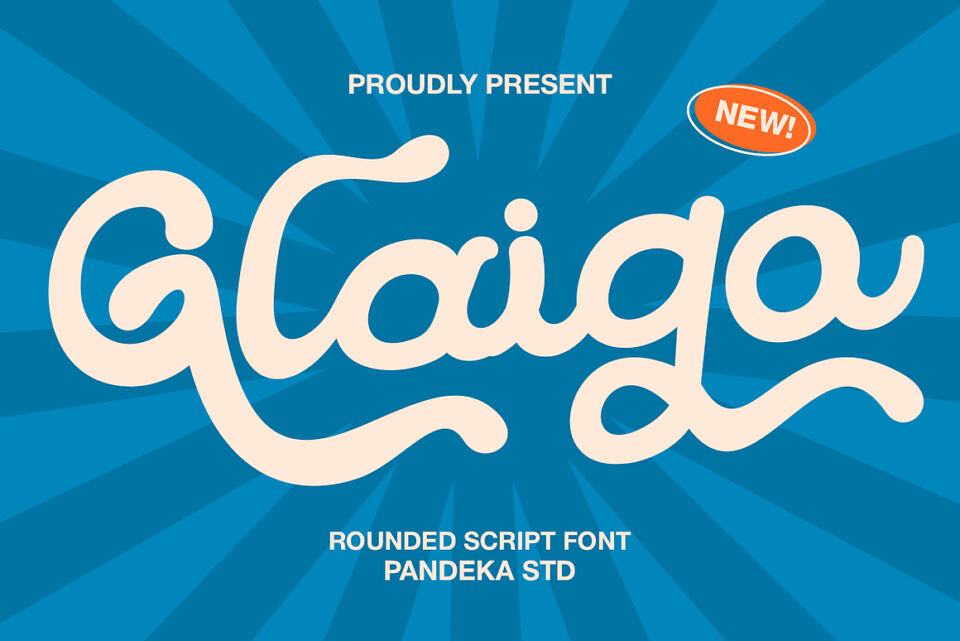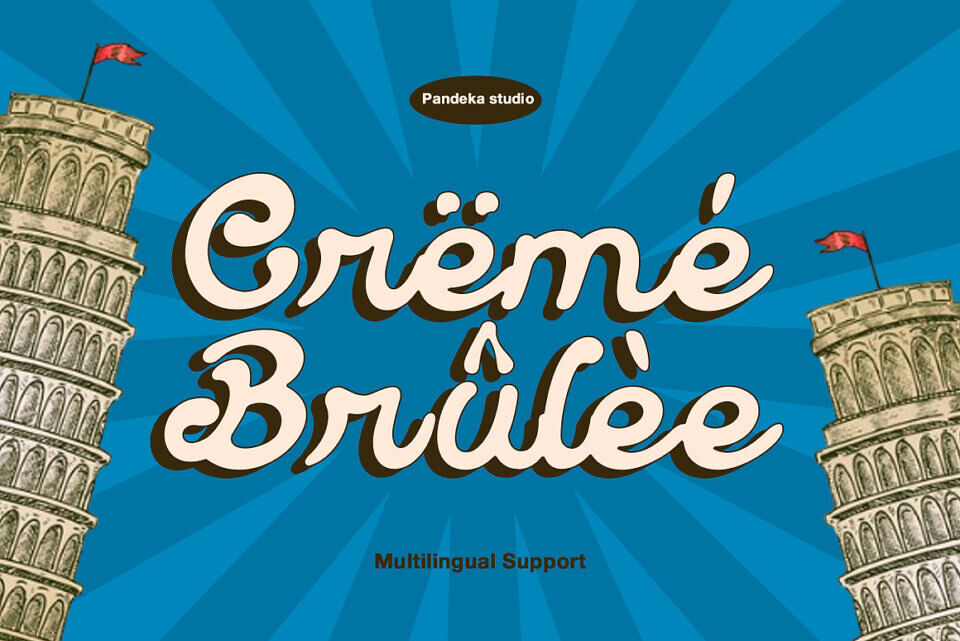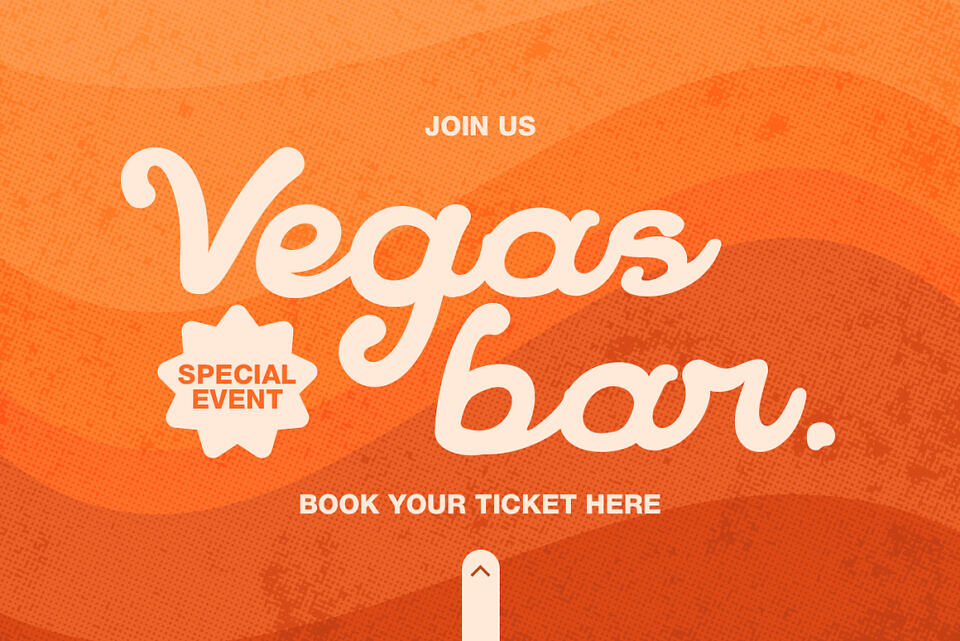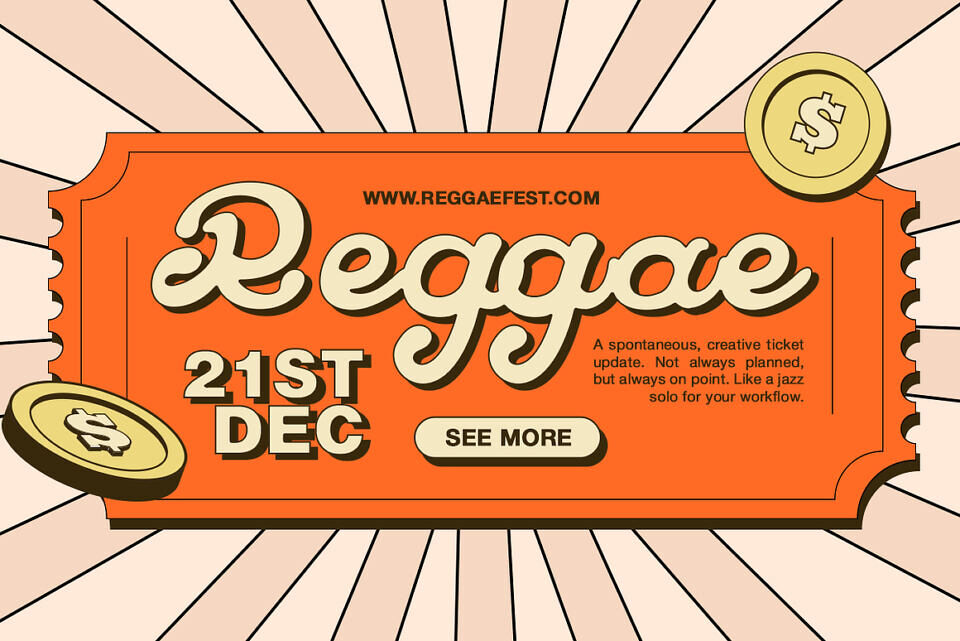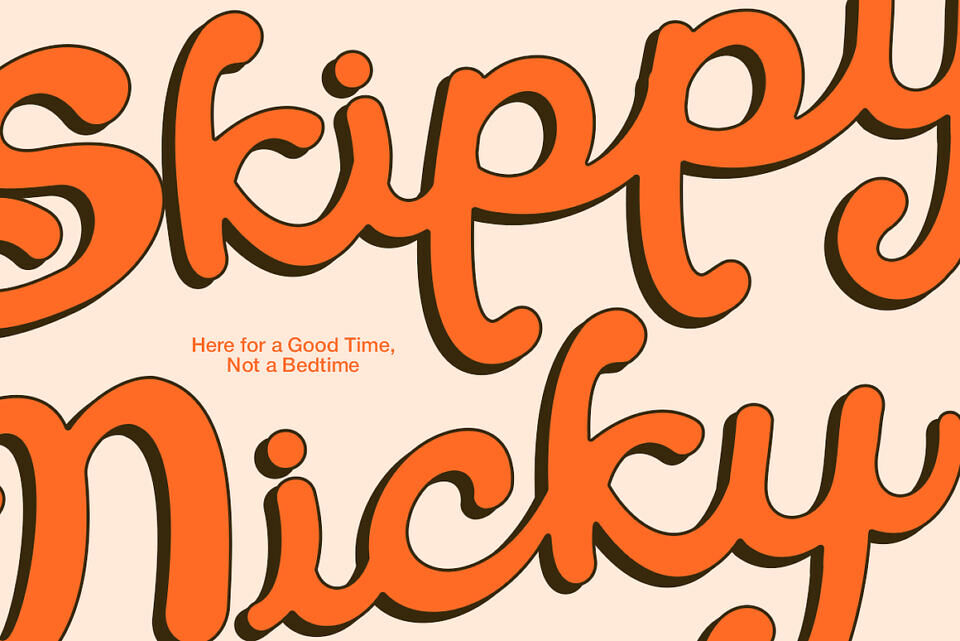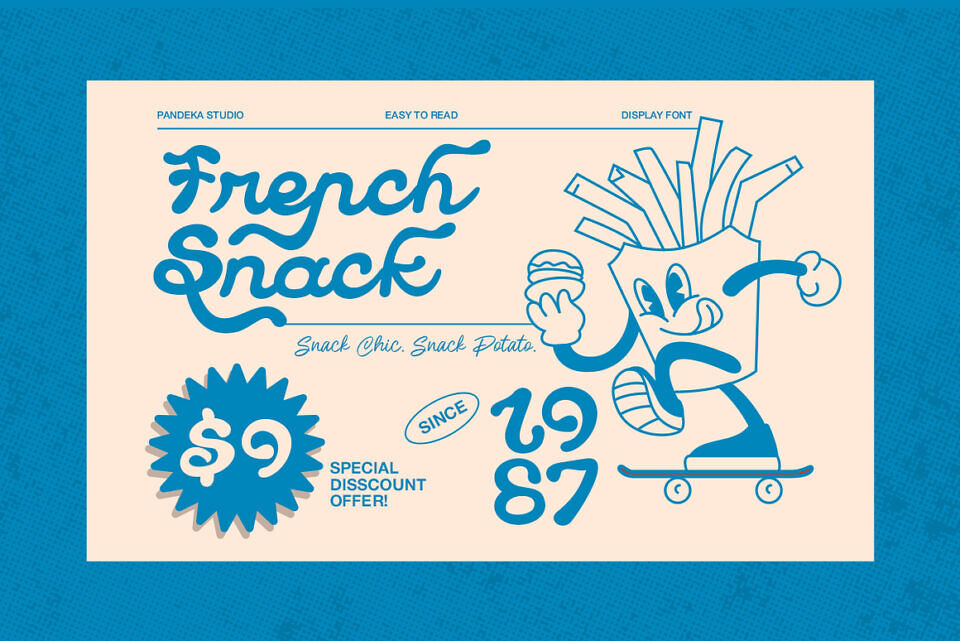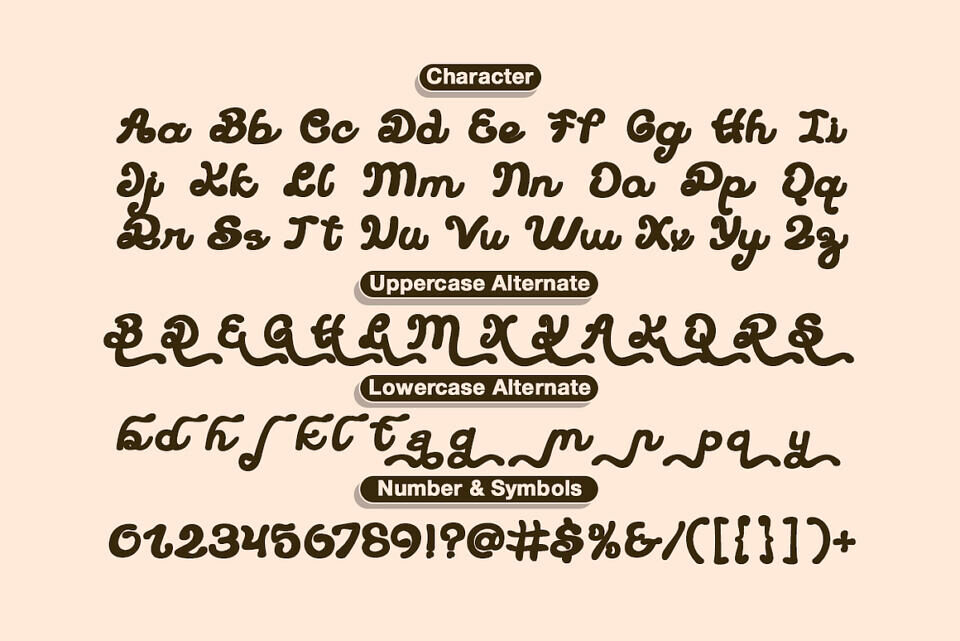
Glaigo is a bold and playful script font with smooth, curvy strokes and a casual retro charm. Perfect for fun rounded script, playful typography, and cheerful design, it’s ideal for logos, packaging, posters, social media, and creative branding. Its modern aesthetic and unique style make Glaigo a standout choice for designs that need both personality and flair.